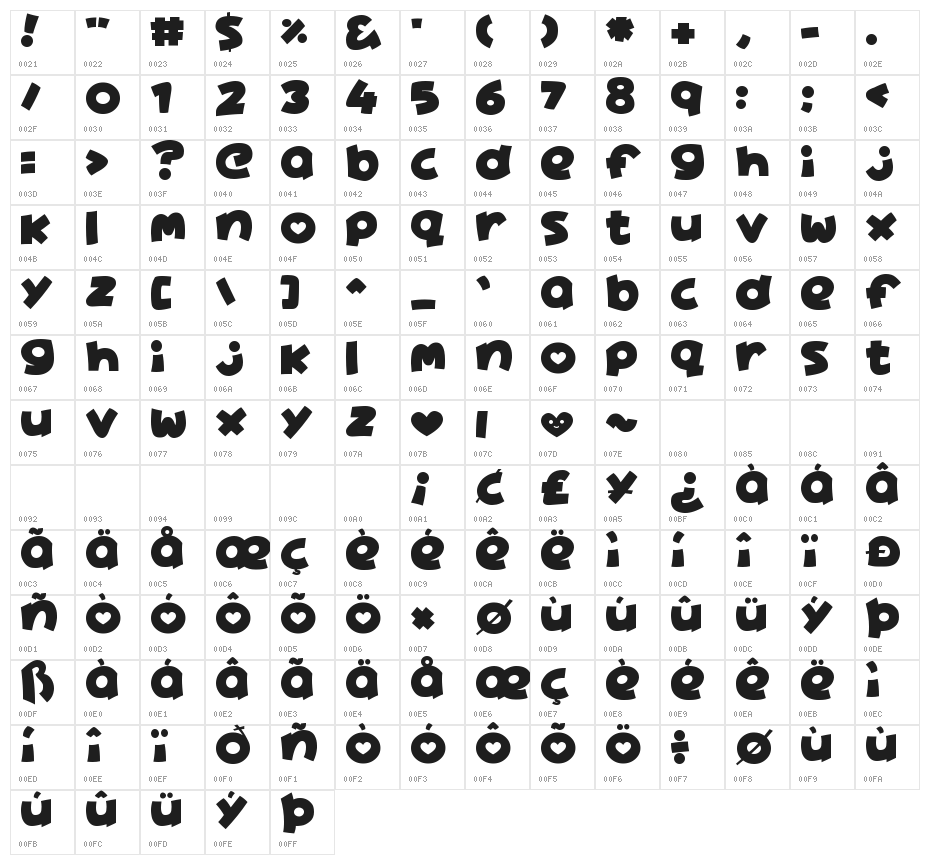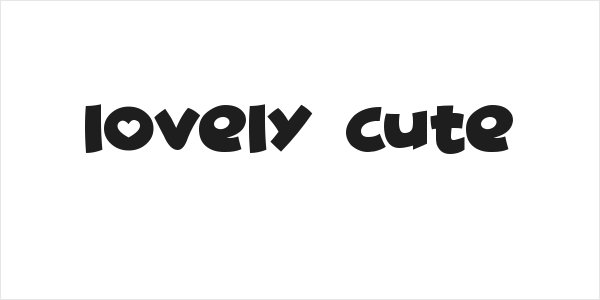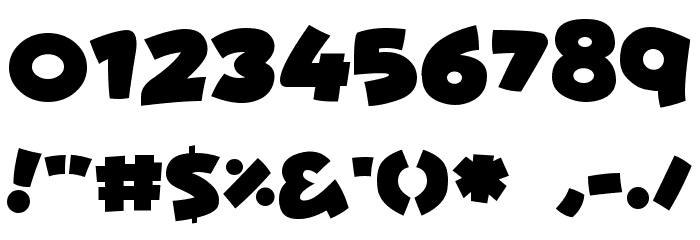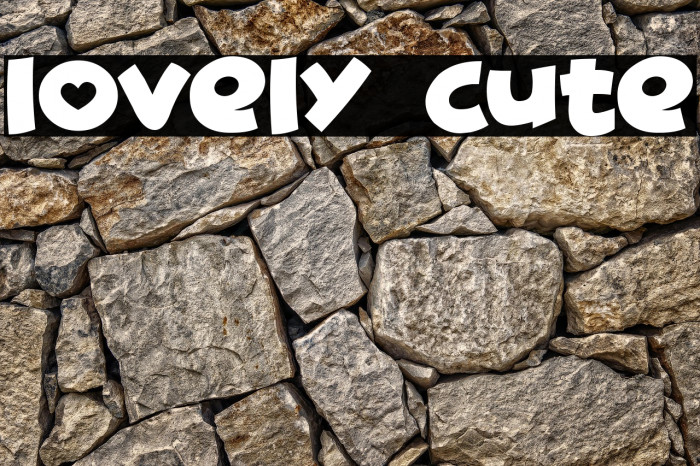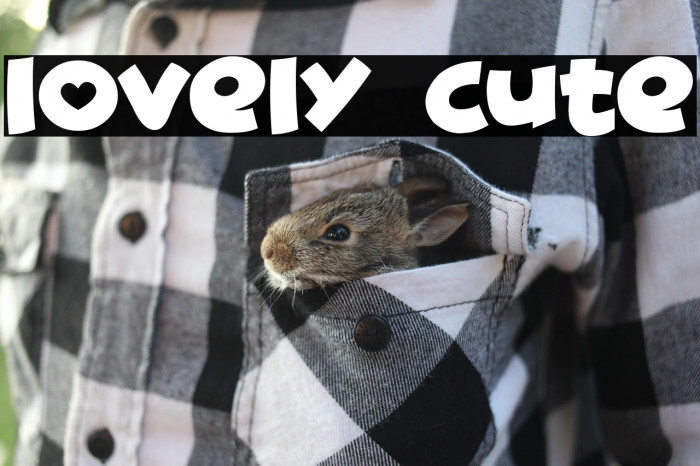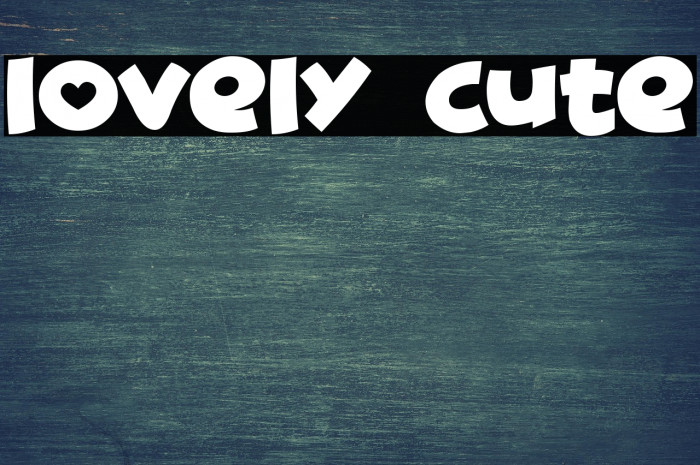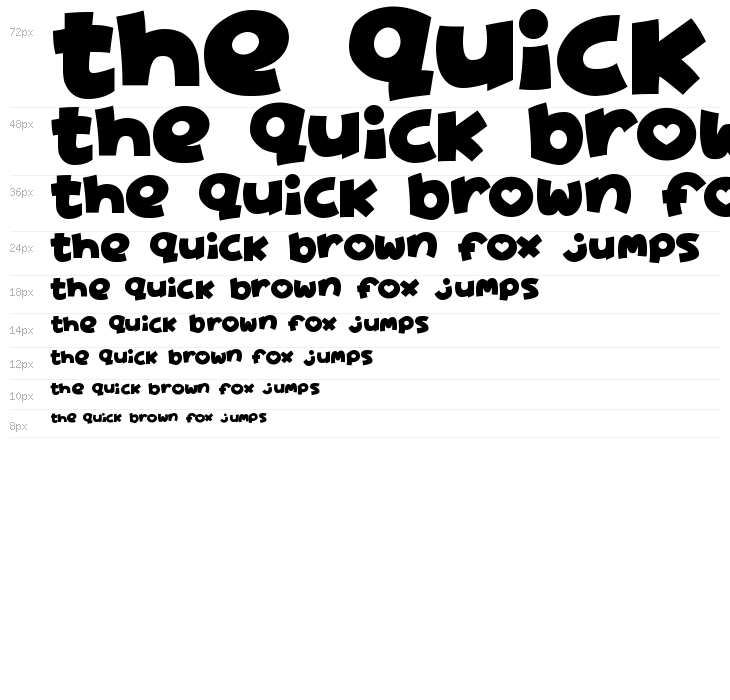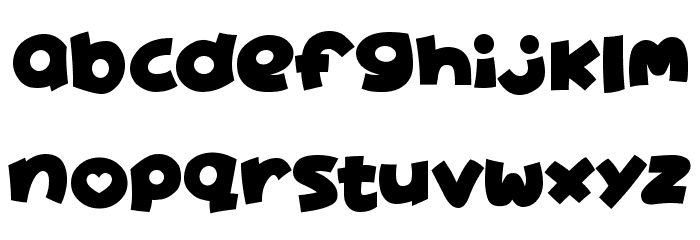
Lovely Cute Font
Lovely Cute Description
This playful and whimsical font features bold, rounded characters with a unique, cartoonish flair. Each letter is crafted with a sense of fun and creativity, making it ideal for projects that require a lighthearted and engaging aesthetic. The characters are slightly irregular, adding to the charm and individuality of the font. The bold strokes and rounded edges give it a friendly and approachable feel, perfect for children's books, playful branding, or any design that aims to convey joy and creativity.
| Overall Style | Playful, Whimsical |
| Proposed Projects | Ideal for children's books, playful branding, greeting cards, and creative posters. |